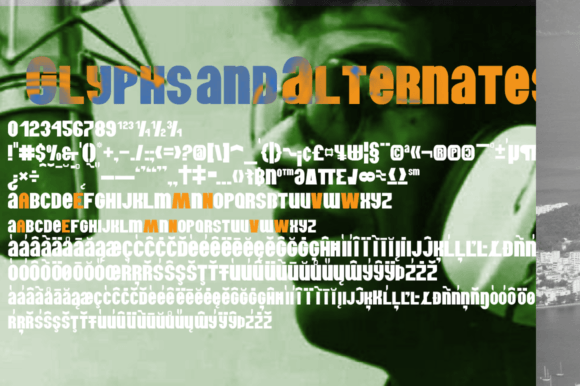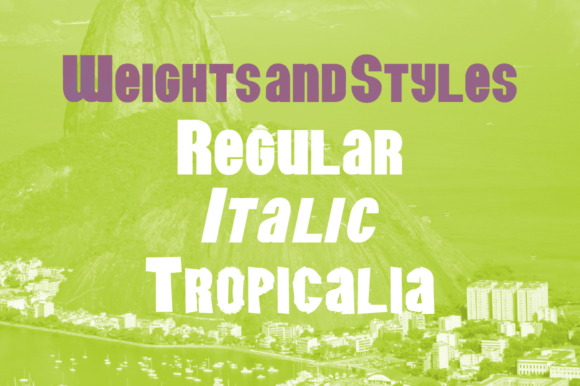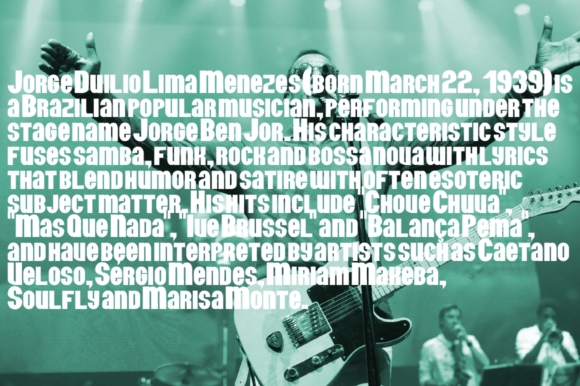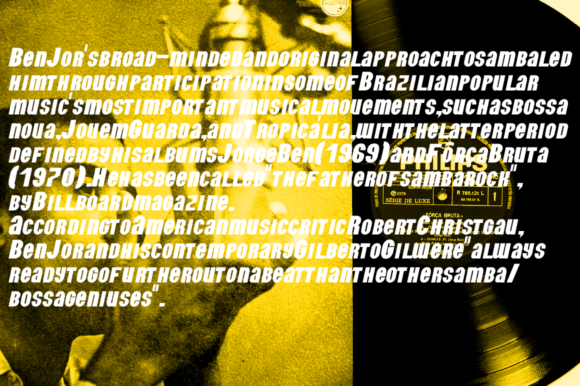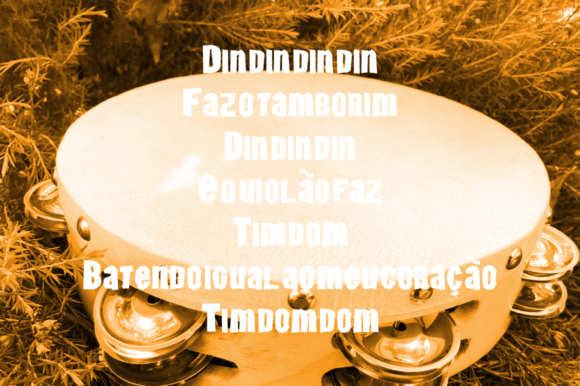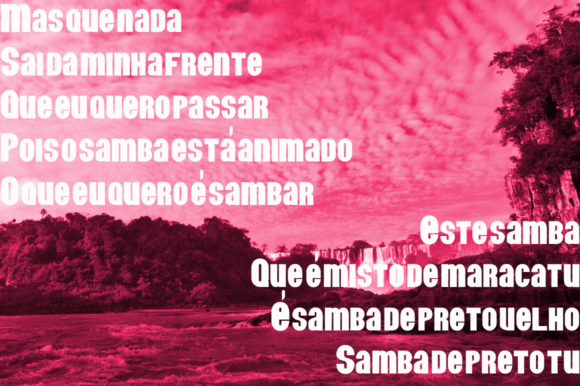
Unleash the Power of Typography with the Benjor Family Font
Have you ever been working on a design project and suddenly had that ‘aha’ moment where you knew exactly what your creation needed – a bold, eye-catching font to make it stand out? For many designers, this is a familiar experience, and the right font can be the difference between a good design and a great one.
Enter the Benjor Family Font, a cool, bold, and thick lettered display font designed to elevate your creations to the next level. With its versatility and impact, this font is a wonderful asset to any font library, capable of enhancing any project or topic you can think of. Whether you’re a seasoned designer or just starting out, the Benjor Family Font is a valuable addition to your toolkit, offering endless possibilities for creative expression.
Benjor Family Font Key Features
- Font Family: Benjor Family Font is a typeface family consisting of multiple font styles, including Benjor Regular, Benjor Italic, Benjor Bold, Benjor Bold Italic, and Benjor Extra Bold.
- Character Set: Supports a wide range of characters, including Latin, Cyrillic, and Greek alphabets, as well as a variety of punctuation marks and symbols.
- Unique Characteristics: Benjor Family Font features a unique blend of modern and traditional elements, with distinctive letterforms and a clean, elegant appearance.
Benjor Family Font Review
Overall, I was really excited to dive into the Benjor Family Font, and I think it has some amazing qualities. Here are a few things that really stand out to me: ✨
- Unique character set: The Benjor Family Font comes with a wide range of characters, including some really unique and creative options that can add a lot of personality to your designs.
- High-quality vector graphics: The font is available in vector format, which makes it easy to scale and manipulate without losing any quality.
- Good legibility: The font is easy to read, even at smaller sizes, which is a must for any font.
However, there are a few limitations that might make it less appealing to some designers: ⚠️
- Limited language support: The font only includes characters for the English language, which might be a problem for designers who need to support other languages.
- No web font option: The font is not available as a web font, which can make it harder to use in web design projects.
Overall, I think the Benjor Family Font is a great option for designers who are looking for a unique and high-quality font. While it may have some limitations, I think it’s definitely worth considering for your next project.
To get the most out of the Benjor Family Font, use it in combination with other design elements, such as images, colors, and shapes. Experiment with different font sizes, styles, and colors to create a unique and visually appealing design.
The Benjor Family Font is suitable for various design projects, including:
- Editorial and publishing projects
What is the recommended font size and line height for the Benjor Family Font?
For optimal readability, we recommend using a font size between 12-14 points for body text and a line height of 1.2-1.5 times the font size. This will ensure that the text is clear and easy to read. You can adjust these settings to suit your specific design needs.